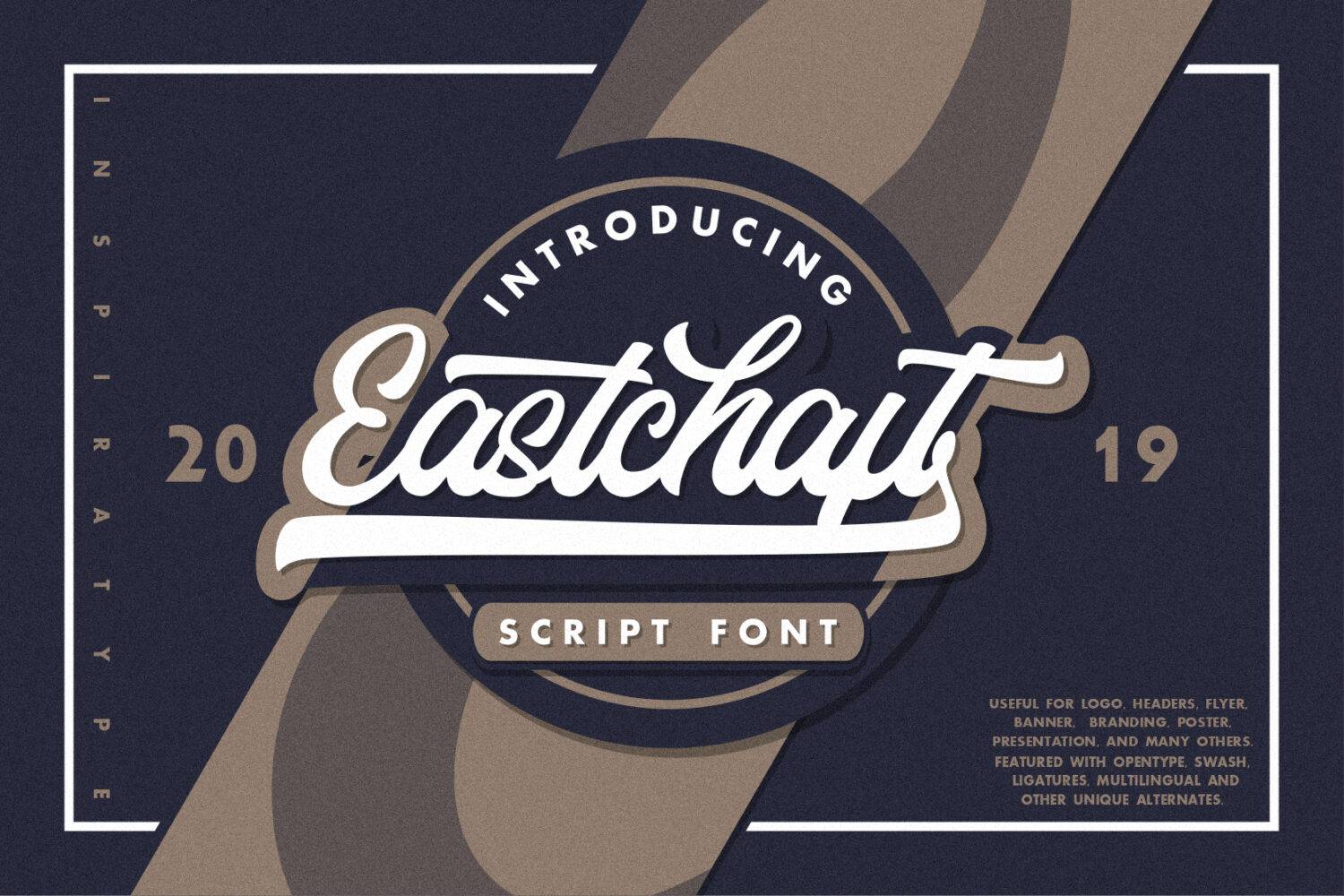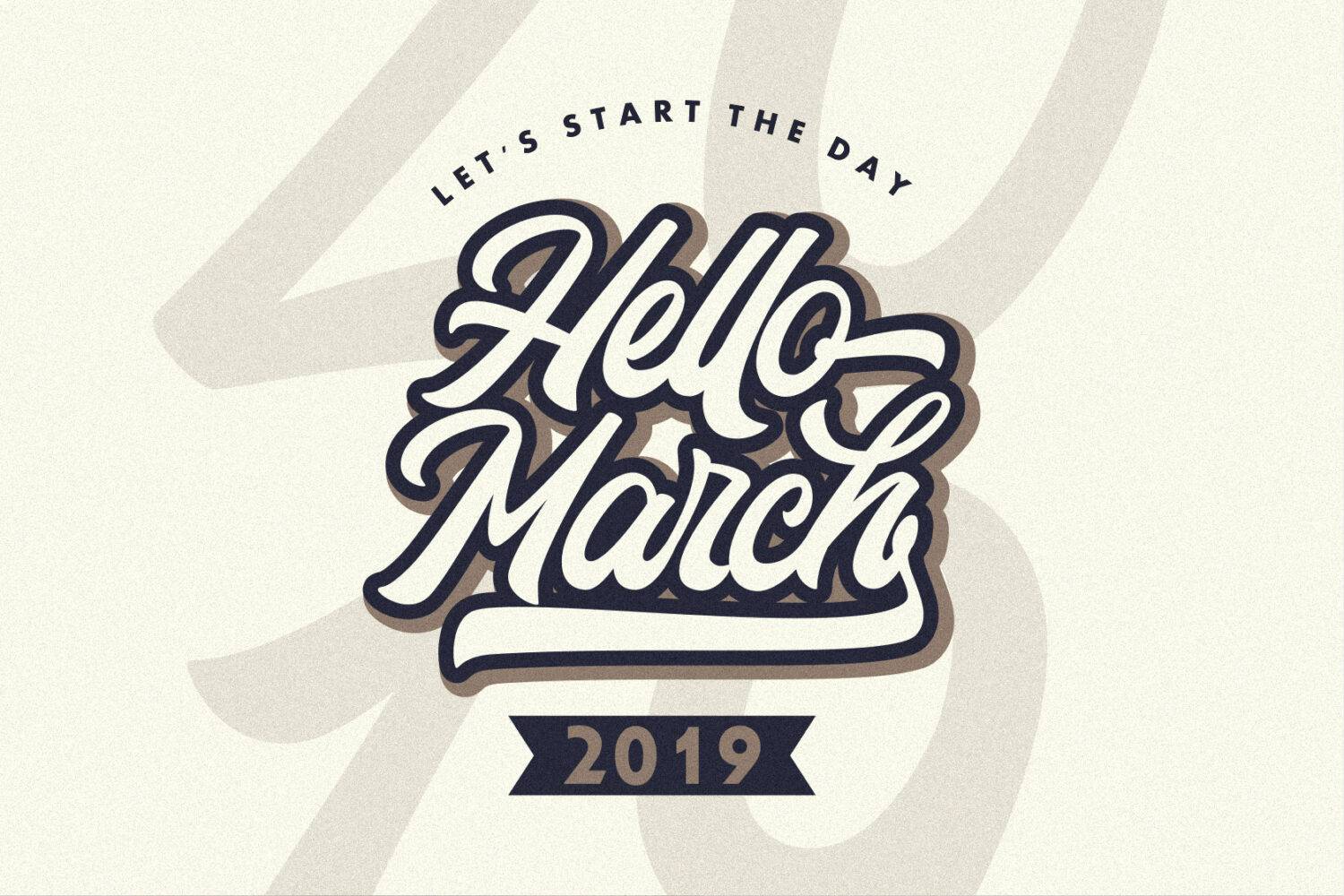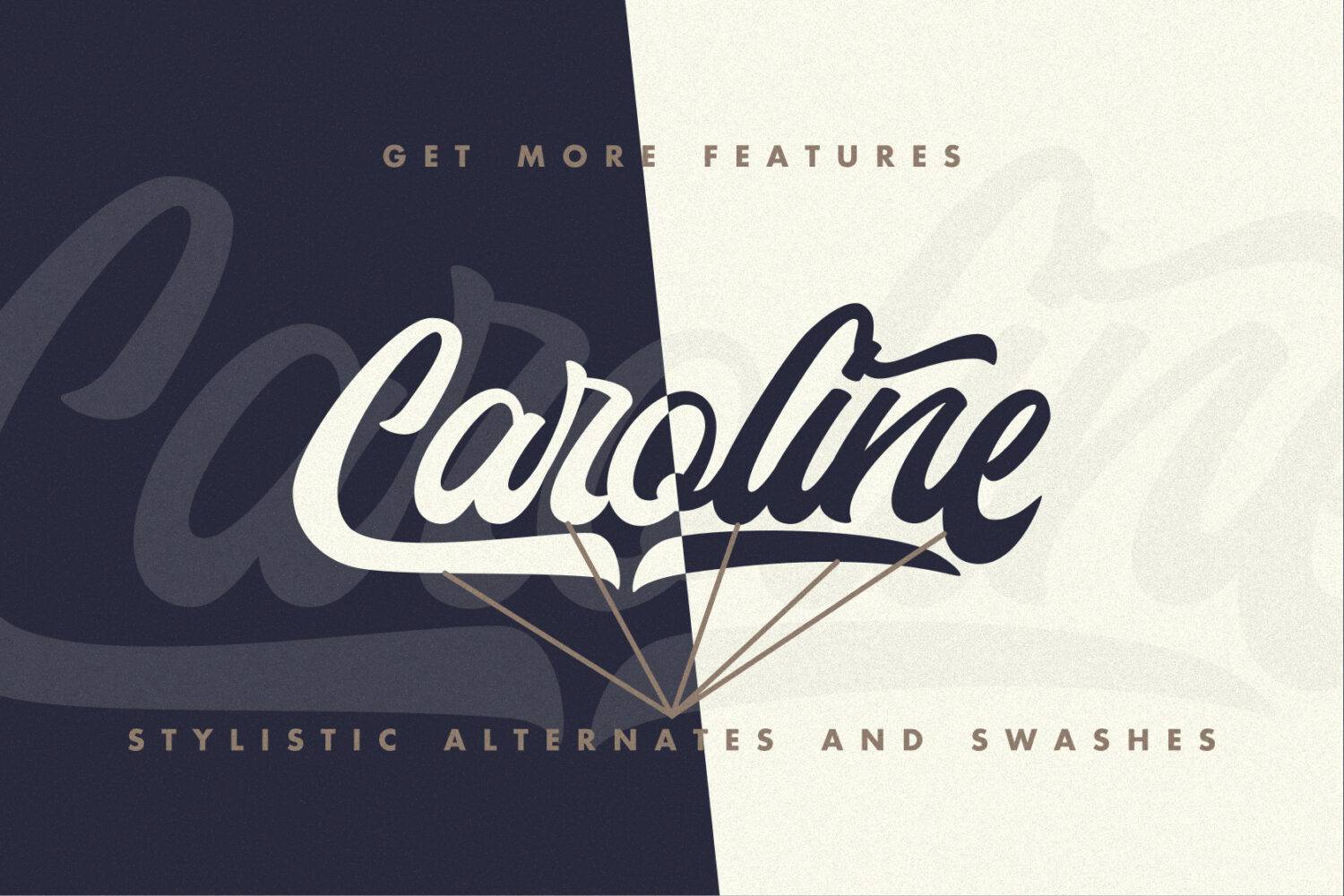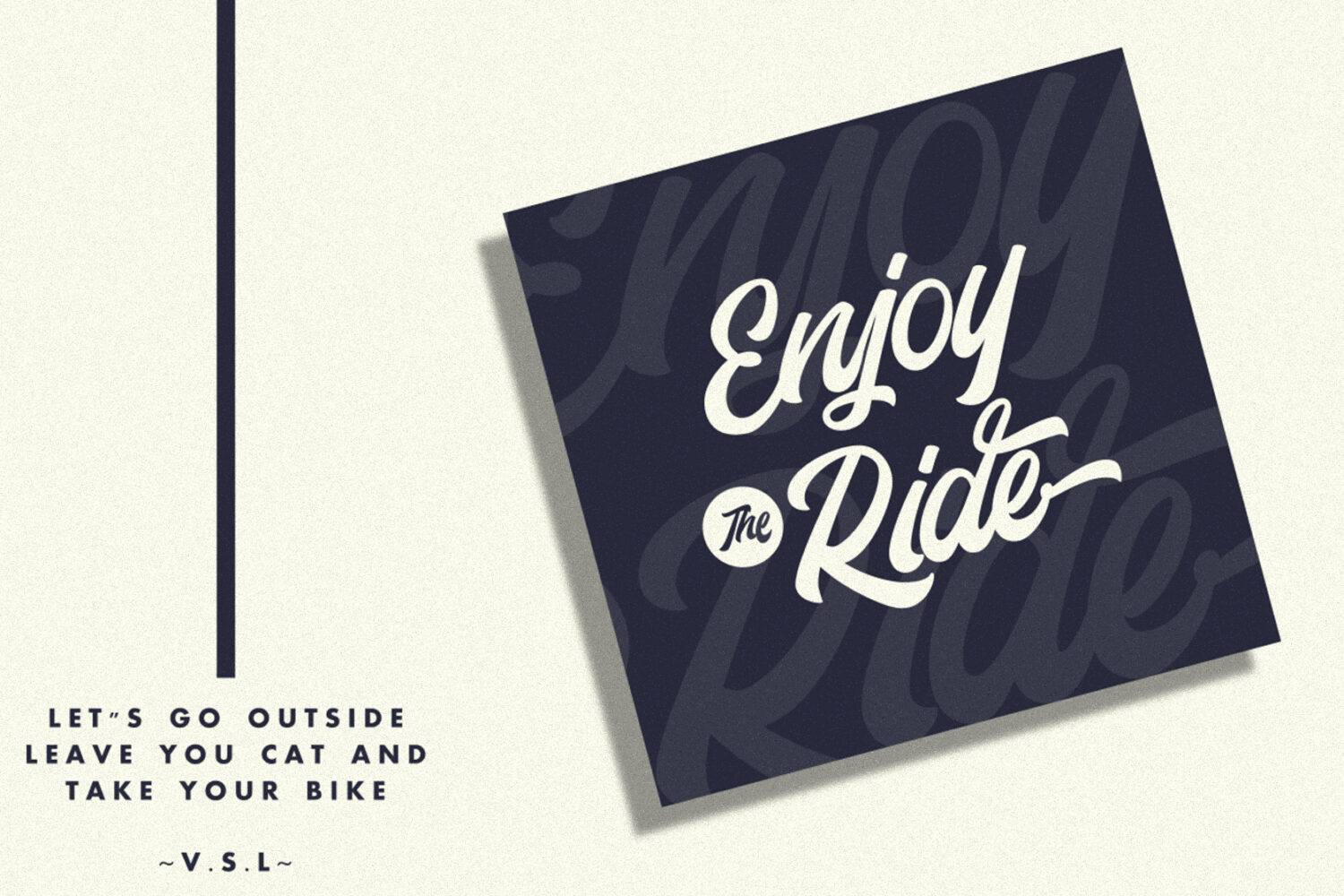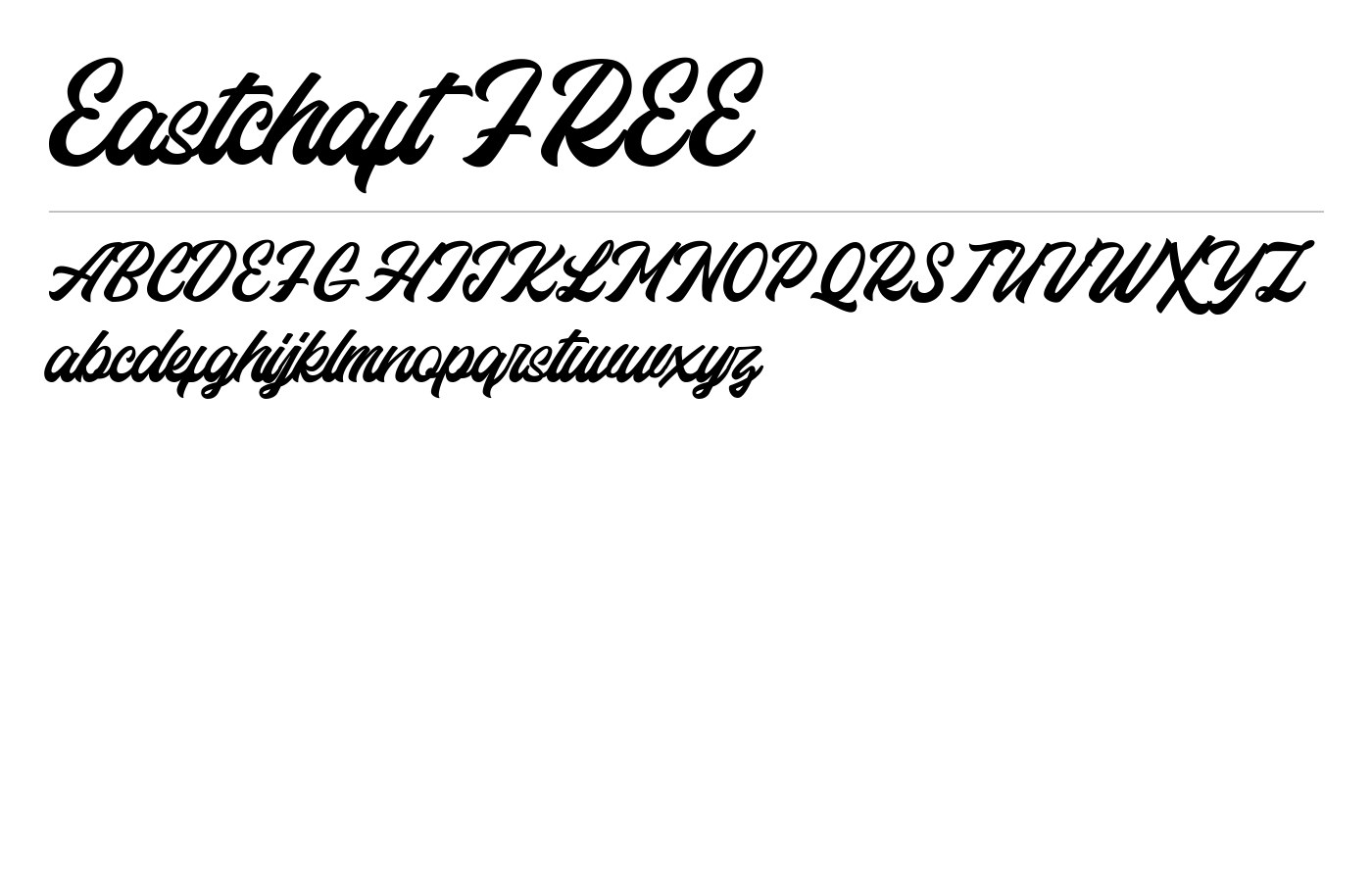
Eastchaft is a bold, cursive script font featuring smooth, flowing strokes that create a lively and friendly appearance. With its relatively high contrast and rounded, connected letterforms, it exudes a casual yet polished personality, making it ideal for branding, logos, packaging, and headlines that seek a warm, approachable, and stylish vibe. This font works beautifully where a distinct, handcrafted look is desired to attract attention without sacrificing readability.
Eastchaft Font
About Eastchaft Font
| Font family | Eastchaft Font |
| Designer | inspiratype |